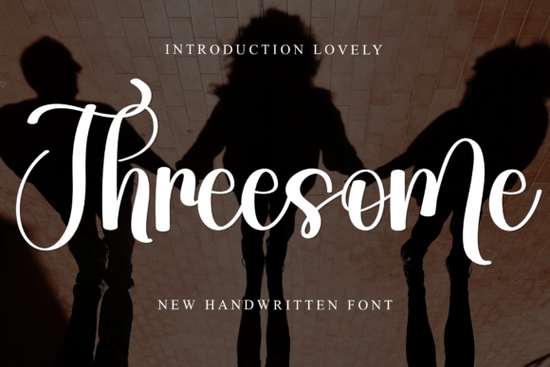
Let's talk about the Threesome Font. If you are a designer or a crafty small business owner looking for that perfect typography solution for your holiday projects, this festive typeface captures a cheerful and nostalgic spirit. It brings a whimsical, decorative touch to anything from greeting cards to gift tags. As someone who constantly browses font websites for unique finds, I appreciate a font that instantly sets a mood. Whether you are a print-on-demand seller creating seasonal merch or a hobbyist working on Christmas cards, finding the right font makes all the difference during the busy holiday season.
For designers, crafters, and small businesses, the holiday season is a rush of creating custom gifts, tags, and social media graphics. You want something that stands out but doesn't feel overly complicated to use. The Threesome Font does exactly that. It is PUA encoded, which means you can easily access all of its special glyphs and ligatures. No need for complicated workarounds just a simple, enjoyable experience that lets your creativity flow into your projects.
What Can I Design with the Threesome Font?
- Greeting Cards: The whimsical swirls and festive feel make it ideal for Christmas, holiday party invites, or New Year wishes. It adds a handcrafted touch that people love to receive.
- Gift Tags & Labels: Elevate your product packaging by adding a personal touch. Whether you sell gifts or wrap your own, this font adds charm without needing any extra illustrations.
- Holiday-Themed Digital Downloads: Perfect for planners, stickers, and printable art. The nostalgic vibe sells itself, especially for buyers looking for that classic, cozy aesthetic.
- Social Media Graphics: Stand out in the feed with text that looks decorative and hand-drawn. It works great for quote graphics and promotional posts.
How Do I Use the Special Glyphs and Ligatures in Threesome Font?
This is the most important part. The "PUA encoding" (Private Use Area) simply means that instead of letters and numbers, the keys on your keyboard are mapped to the fancy swirls, tails, and alternate characters. In programs like Adobe Illustrator, Photoshop, or even Cricut Design Space, you can open the Glyphs panel, select the Threesome Font, and double-click the special "a," "g," or "y" to swap it out. It gives your text that custom, calligraphy look without having to draw anything yourself. For projects that require a softer, more romantic dreamy look, the Laila Dream Font offers a beautiful contrast, especially if you are pairing different typefaces in one design. You can find the Threesome Font available for download on Creative Fabrica. The platform often runs deals and subscriptions that give you access to a massive library of fonts and graphics, which is a huge plus for budget-conscious creators.
A Quick Checklist for Your Holiday Design Project
- Plan Your Message: Keep it short and sweet so the decorative font remains readable.
- Test the Glyphs: Spend 10 minutes clicking through the different "S" and "A" options. The alternate characters are what make it look custom.
- Pair with a Simple Sans-Serif: Let the Threesome Font be the star of the show, and use a clean, simple font for smaller details like addresses or small print.
- Check the Contrast: Dark green ink on cream paper looks incredibly nostalgic, while white foil on a red card looks modern and festive.